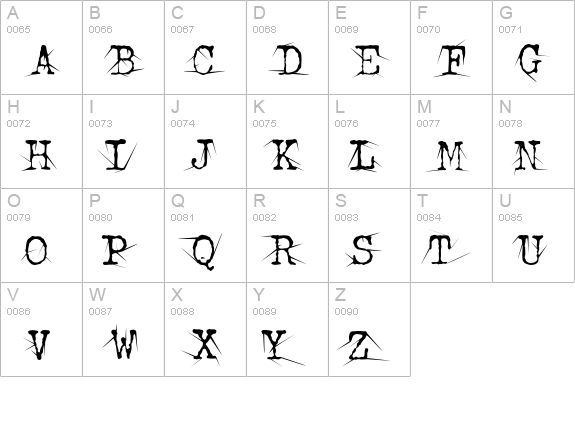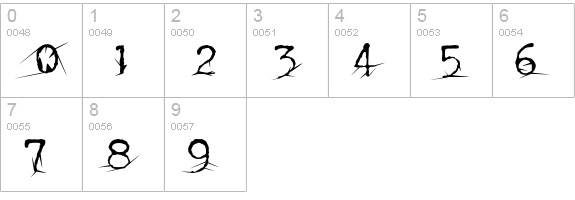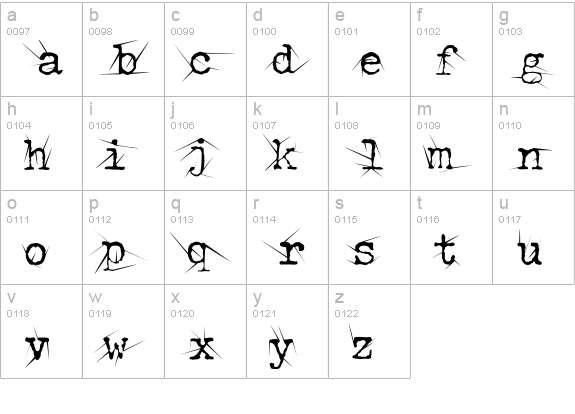
Confused Root Font Details
Confused Root font is a unique and artistic typeface that exudes a sense of mystery and intrigue. Its quirky and irregular letterforms give it a distinct and playful look, making it perfect for adding a touch of whimsy to your projects. The organic and tangled roots-inspired design of Confused Root font adds an element of nature and earthiness to your designs, creating a harmonious balance between modernity and tradition. Best of all, Confused Root font is available for free download at FontsMarket.com. So, go ahead and unleash your creativity with this captivating and one-of-a-kind typeface. Whether you're designing a logo, poster, or website, Confused Root font will surely make a lasting impression and set your work apart from the rest.